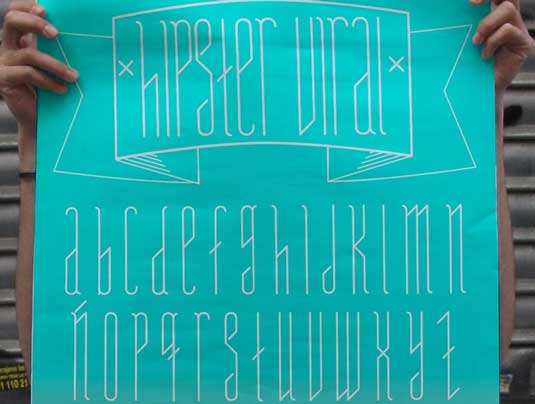
Font of the day: Hipster Viral
Every day we showcase the best fonts from around the web. Today it's Hipster Viral by Álvaro Yuste, which is free in exchange for a tweet!
Hipster Viral by Álvaro Yuste
Today's font of choice is Hipster Viral by Madrid-based illustrator and designer Álvaro Yuste. "Hipster Viral is a free license font, reinventing the blacketter fonts," he comments.